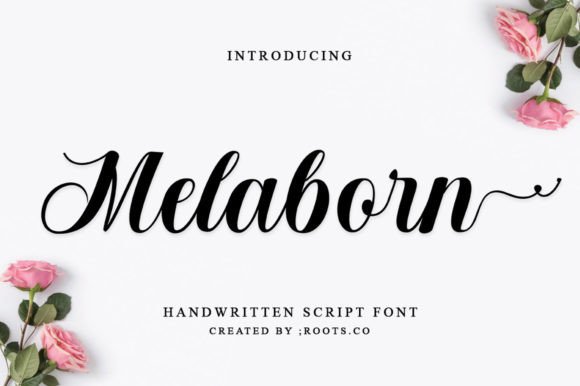
Step into the world of Melaborn Font, a calligraphic script masterpiece that weaves copper plate calligraphy with the charm of hand-lettering. Designed to evoke an aura of sophistication, this font has the elegance and finesse to transform your creative projects into works of art.
With Melaborn Font, you hold the key to unlock a world of design possibilities. Its meticulously crafted characters dance across the page, leaving a trail of beauty and grace. From formal invitations and intricate labels to stylish menus and captivating logos, Melaborn Font adapts effortlessly to a symphony of design needs.
Let your imagination soar with fashion magazines, books, and countless other projects adorned with Melaborn Font's captivating presence. Its versatility is a symphony of endless possibilities.
But what truly sets Melaborn Font apart is its ease of use. Encoded with PUA, this font allows you to effortlessly access all its glyphs and swashes, making customization a breeze. Unleash your creativity and let Melaborn Font be your muse.
Join the ranks of discerning designers who have chosen Melaborn Font to elevate their work. Experience the magic of calligraphy and hand-lettering intertwined, creating designs that captivate and inspire.
Discover the allure of Melaborn Font today and let your creativity flourish. Embrace the elegance, versatility, and effortless charm that await you.